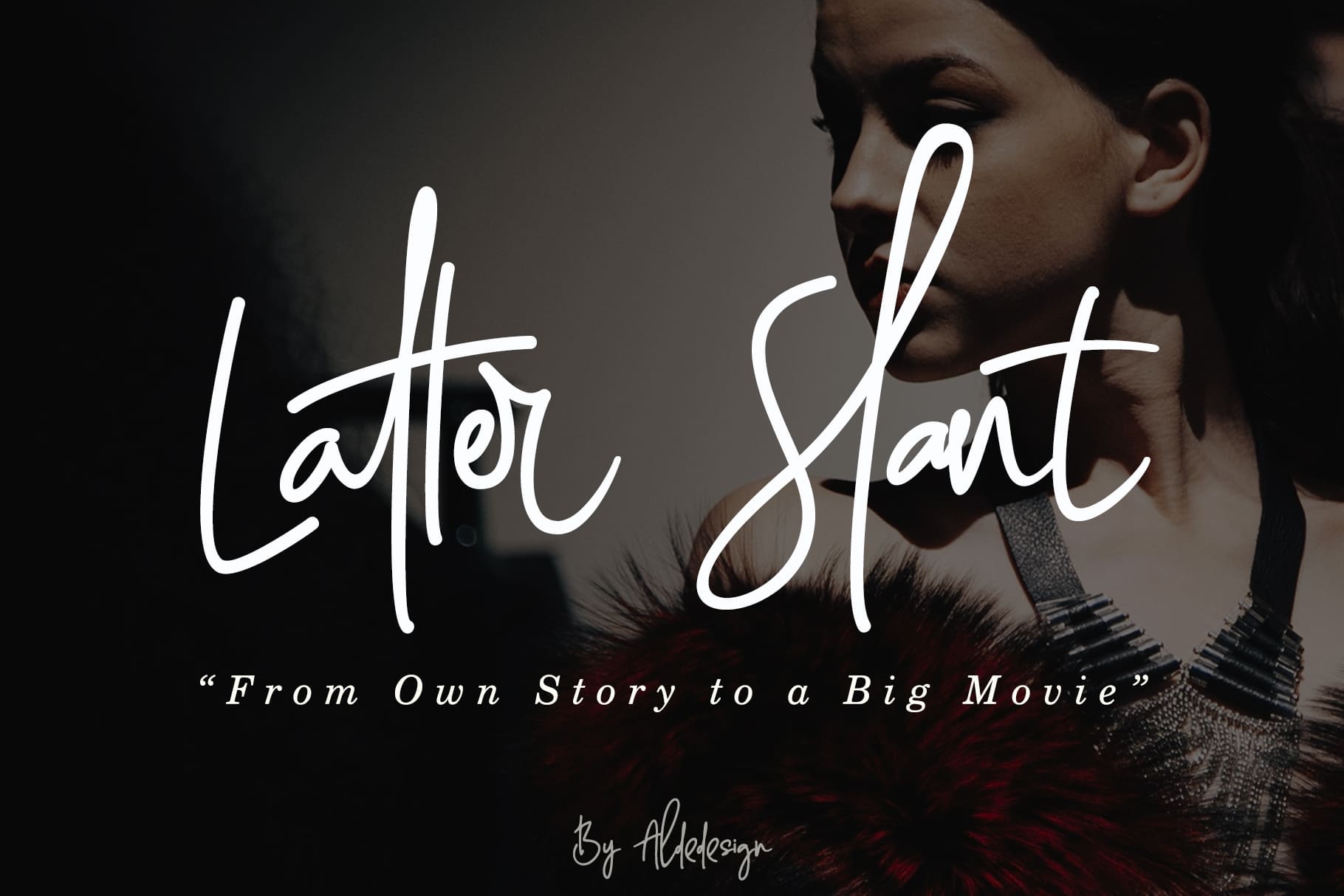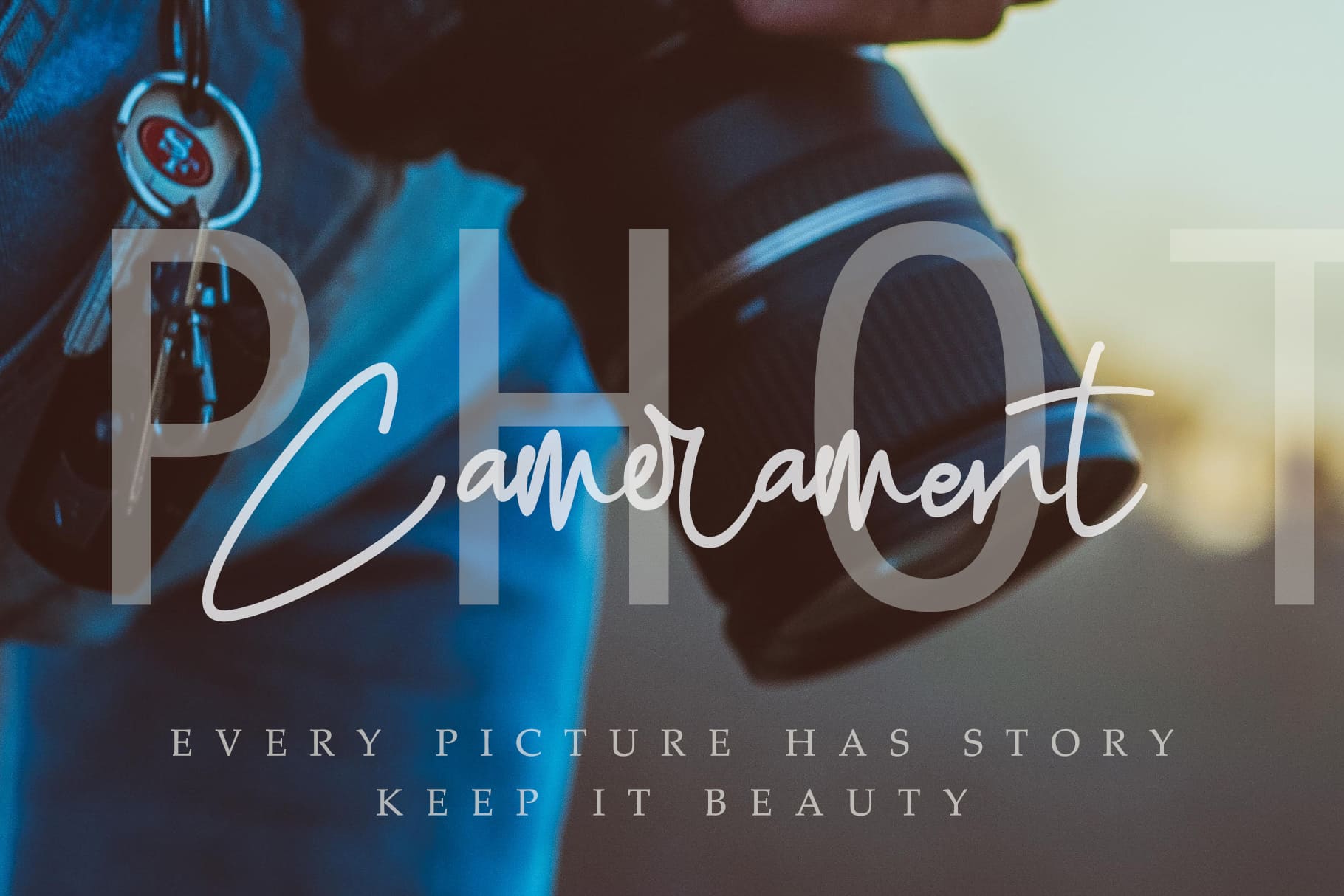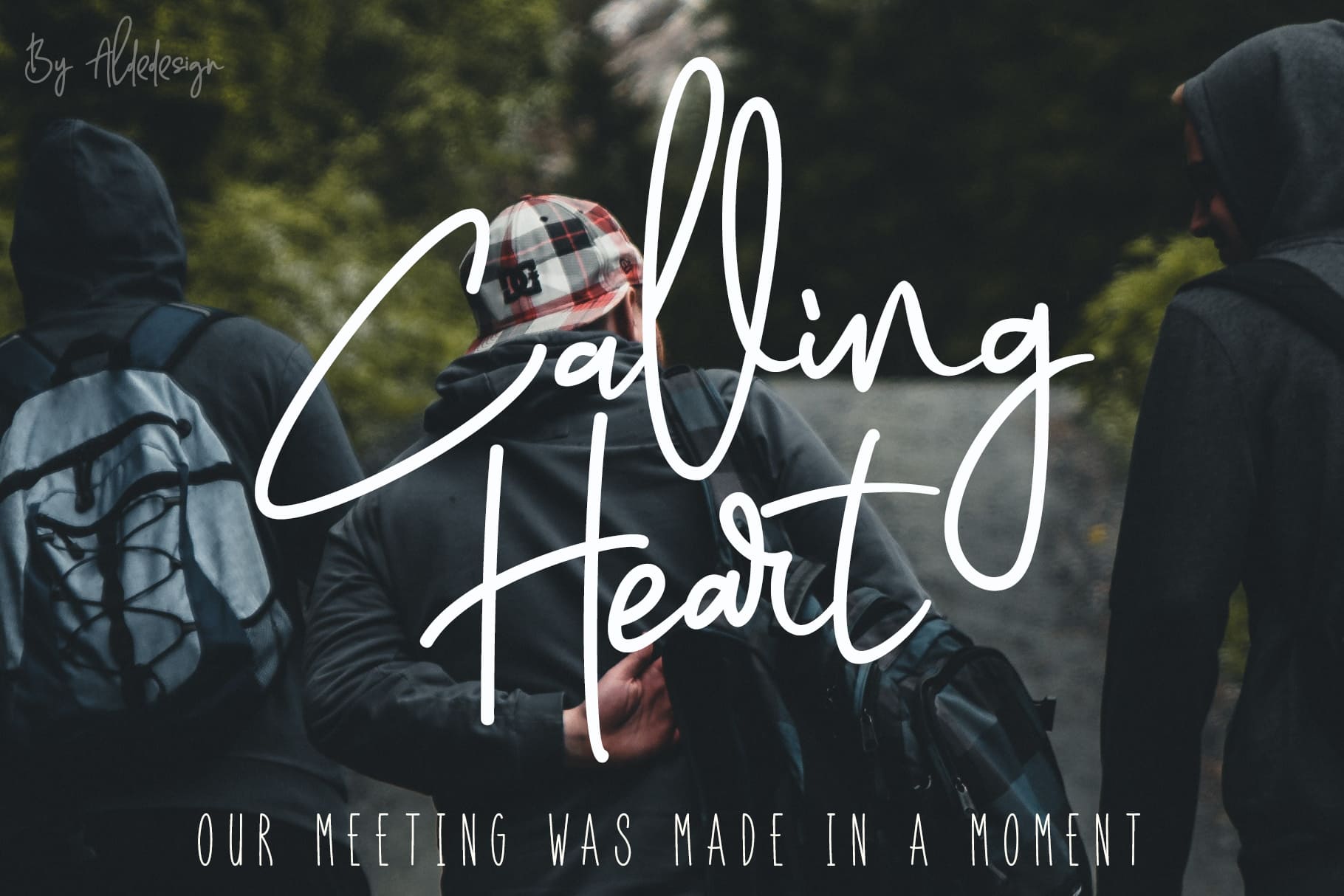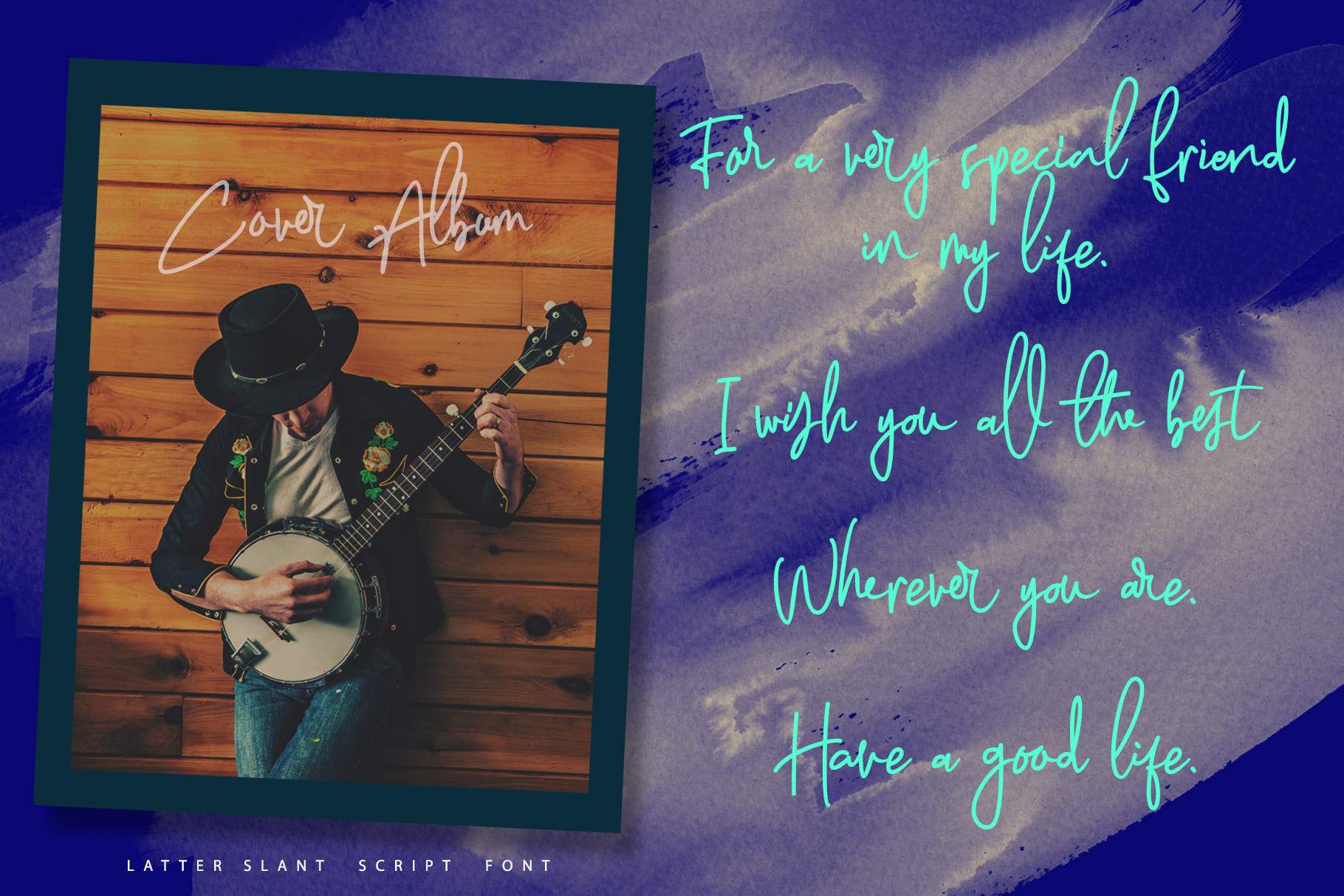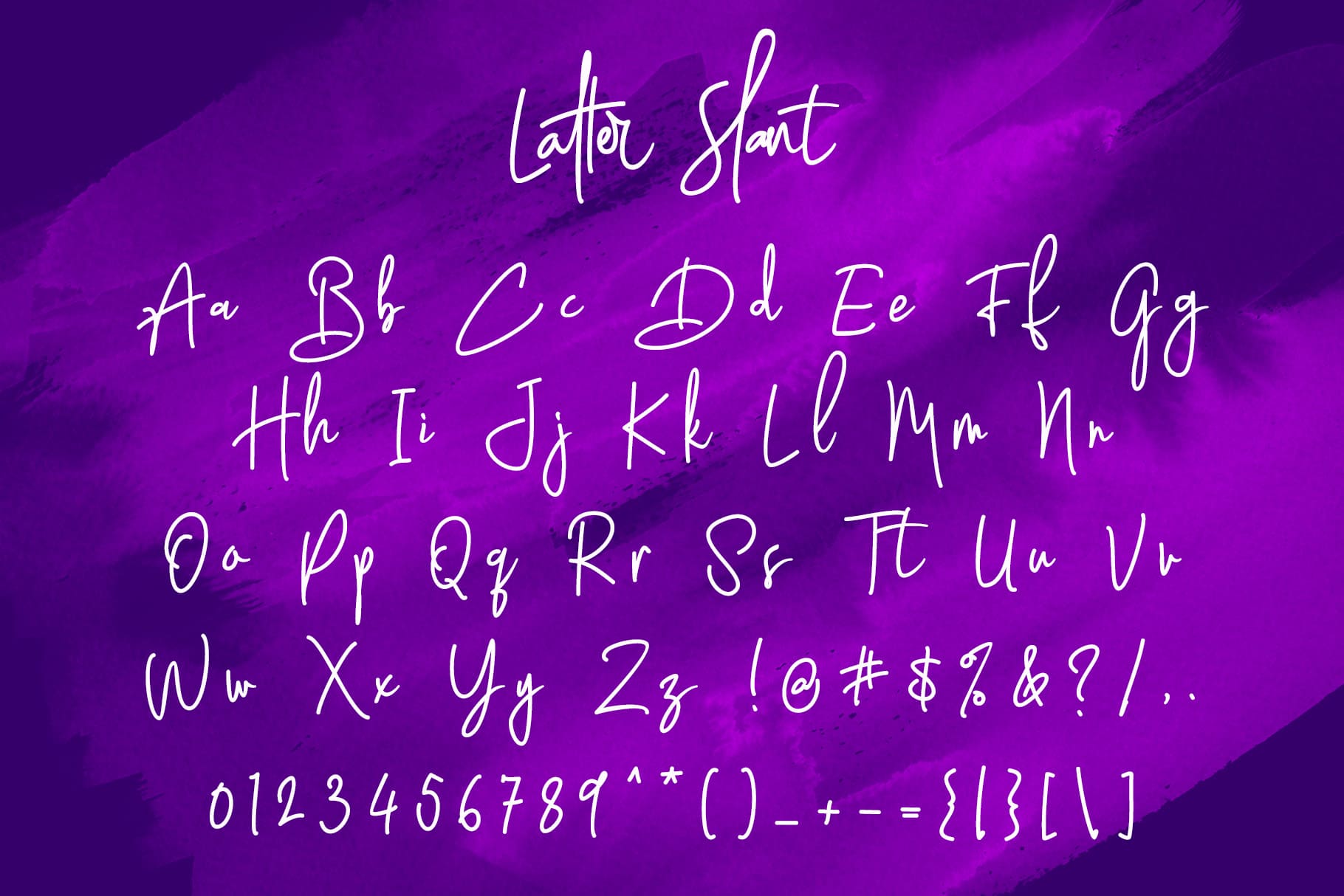
Latter Slant is classy, readable, elegant, stylish, catchy, easy to use and contains many ligatures.
Latter Slant is a great choice for watermark on branding, design, wedding, photography, signature, logo design, album covers business cards quotes, and many other design projects.
Latter Slant is an eye-catching signature font, you can use for a variety of purposes including wedding invitations, signatures, logos, branding, posters, and many more design projects.